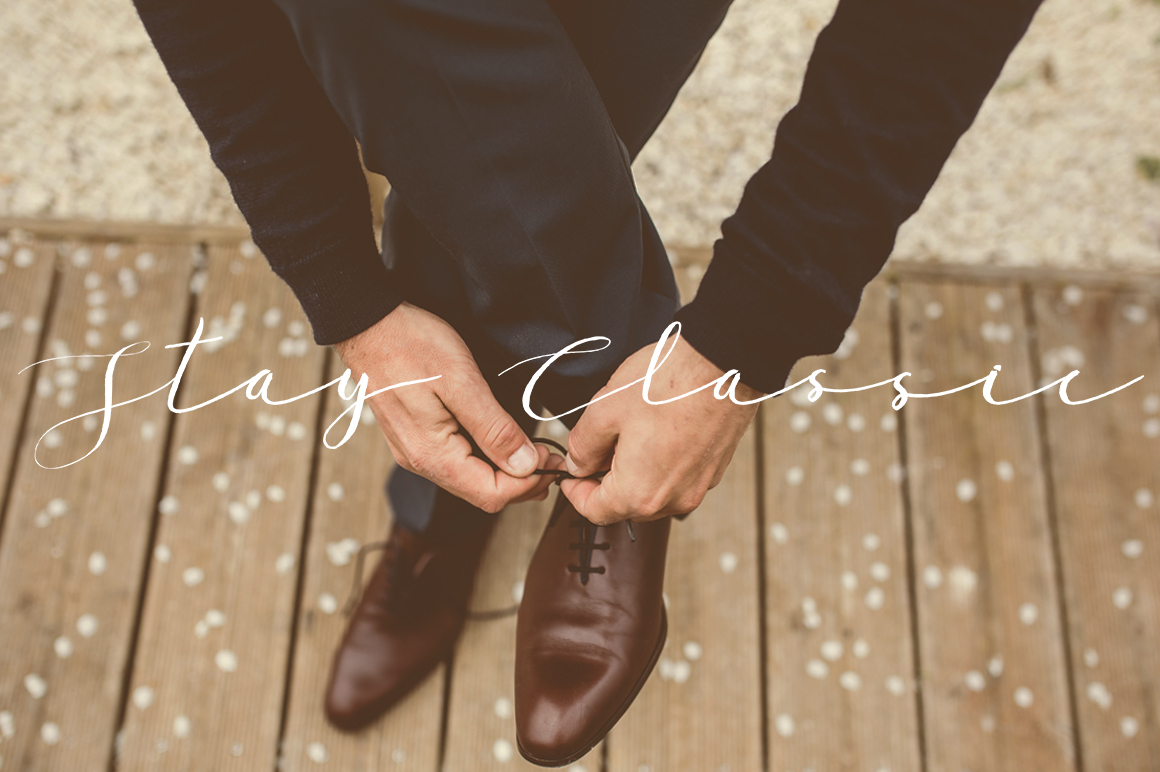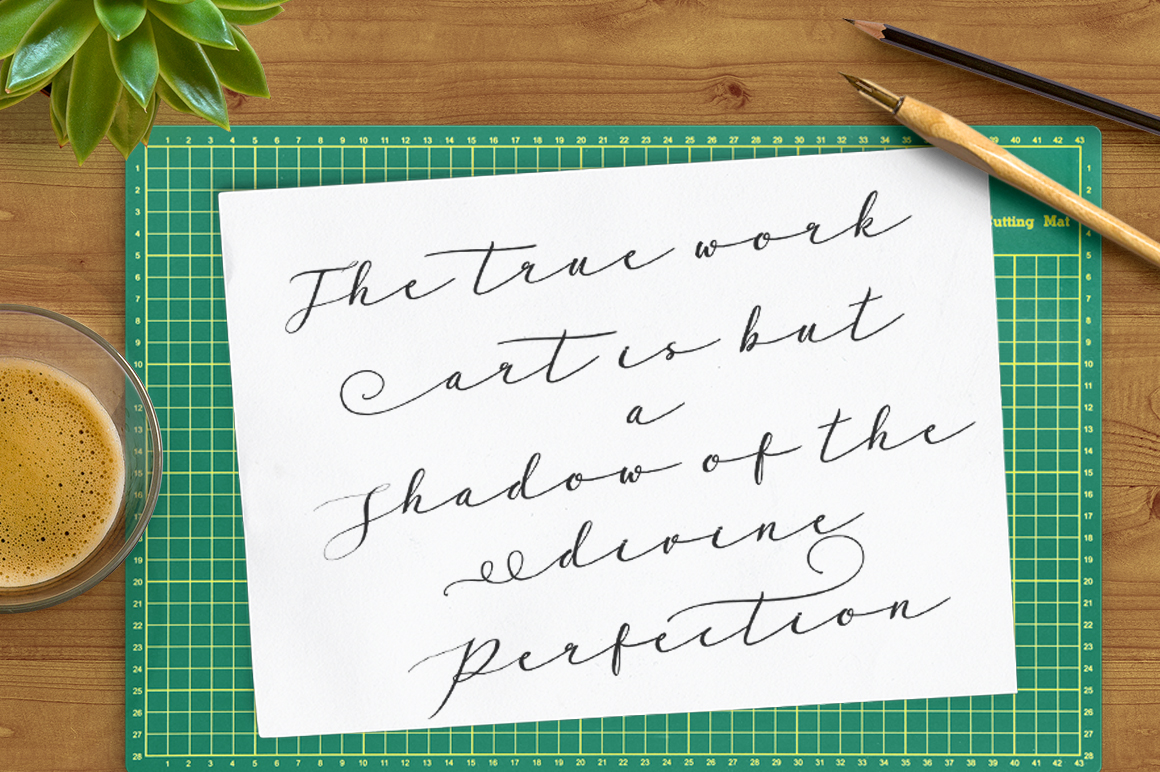
Introduction to Lines Script Font
As a designer, have you ever found yourself pouring over a blank canvas, searching for the perfect font to bring your creative project to life? For me, it’s that moment of clarity when all the pieces fall into place, and I know I’ve found the perfect design resource. That’s exactly what happened when I stumbled upon the stunning Lines Script Font – a beautiful, handwritten font that instantly elevates any project to the next level.
But what really sets Lines Script Font apart is the fact that it comes with a matching sans serif font, making it the ultimate design duo for any creative project. Whether you’re working on a high-end advertising campaign or a romantic wedding invitation, this font pair is sure to impress. And the best part? It’s available for free download, making it an invaluable resource for designers of all levels.
With its high-quality design and versatility, Lines Script Font is a must-have for any designer looking to take their projects to the next level. And with its transparent background option, the possibilities are endless. Get ready to elevate your designs with the stunning Lines Script Font.
Key Features of Lines Script Font
- High-quality, handwritten script font designed for creative projects
- Unique characteristics: connected script, elegant and cursive style, perfect for invitations, quotes, and other creative projects
Honest Review: Lines Script Font
I recently had the chance to try out the Lines Script Font and I must say, it’s been a game-changer for my creative projects. As a designer, I’m always on the lookout for high-quality design resources that can elevate my work and help me achieve my vision.
- The Lines Script Font is incredibly versatile, perfect for a variety of creative projects, from wedding invitations to blog headers.
- The font’s unique, handwritten style adds a touch of personality to any design, making it stand out from the crowd.
While the Lines Script Font is generally a great choice, there are a few limitations to be aware of:
- The font may not be suitable for small text sizes, as it can become difficult to read.
- The font’s unique style may not be to every designer’s taste, so be sure to test it out before committing to a project.
Overall, I’m thoroughly impressed with the Lines Script Font. Its unique style, high quality, and transparent background option make it an excellent choice for any creative project. With its free download option, it’s an absolute must-have for any designer’s toolkit.
Lines Script Font
To get the most out of the Lines Script Font, experiment with different font sizes, colors, and combinations with other fonts. You can also use the font in conjunction with other design elements, such as graphics and images.
The Lines Script Font is commonly used in creative projects such as wedding invitations, party decorations, and social media graphics. It’s also a great choice for presentations and reports that require a touch of elegance and sophistication.